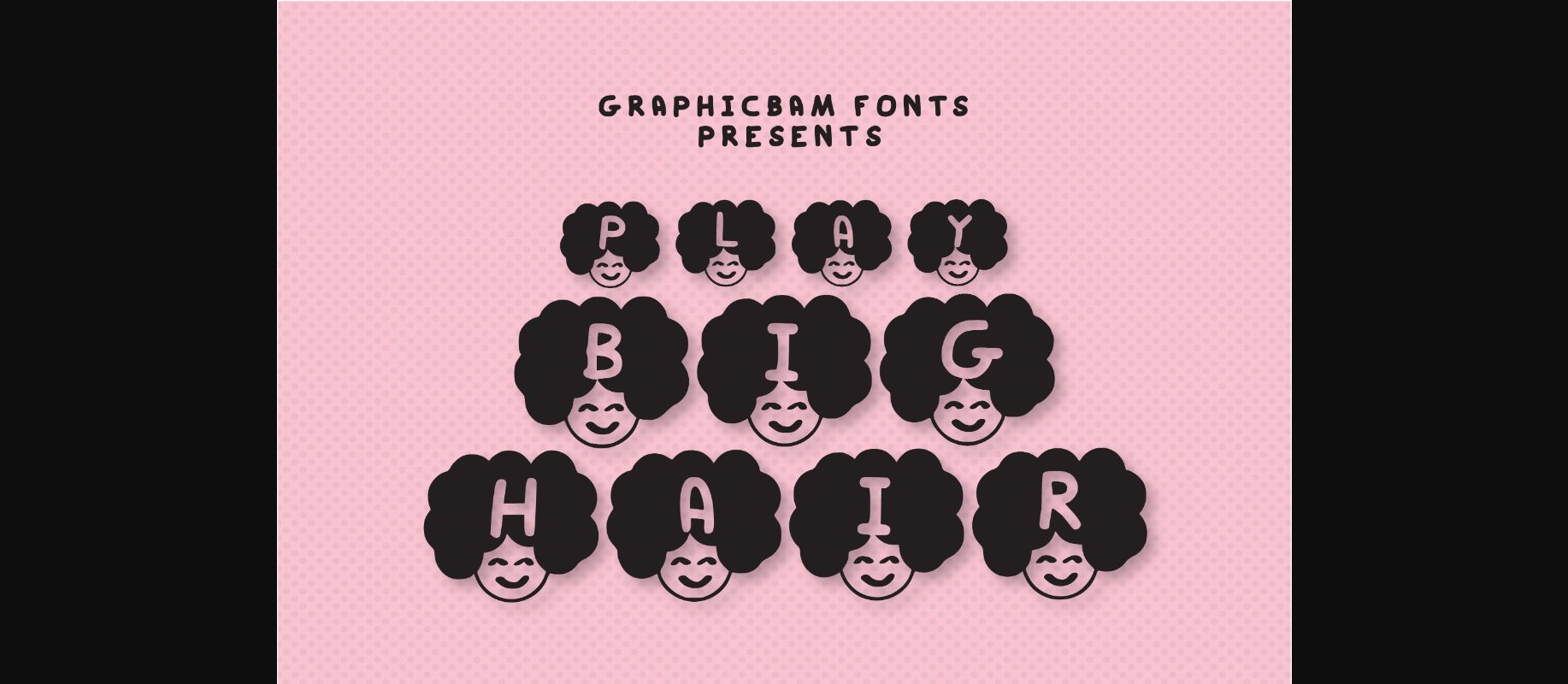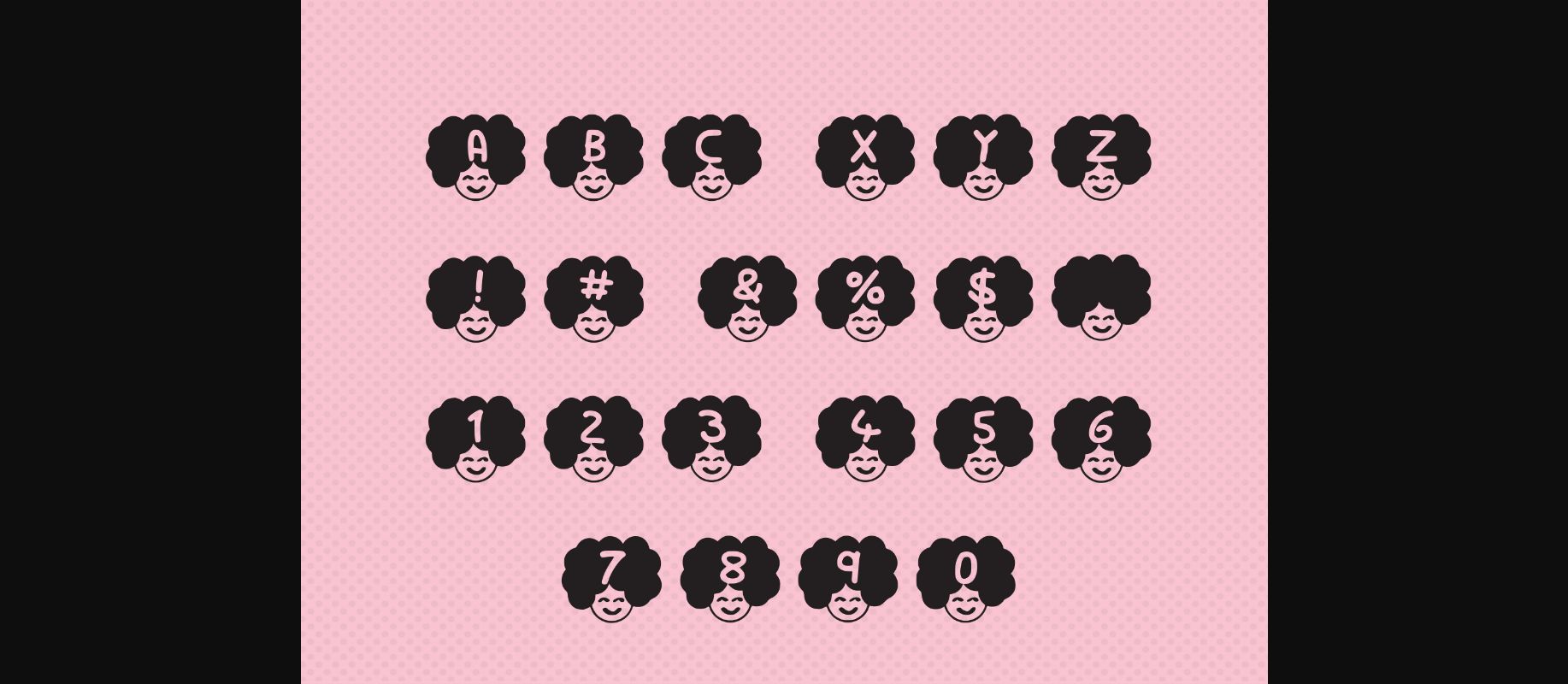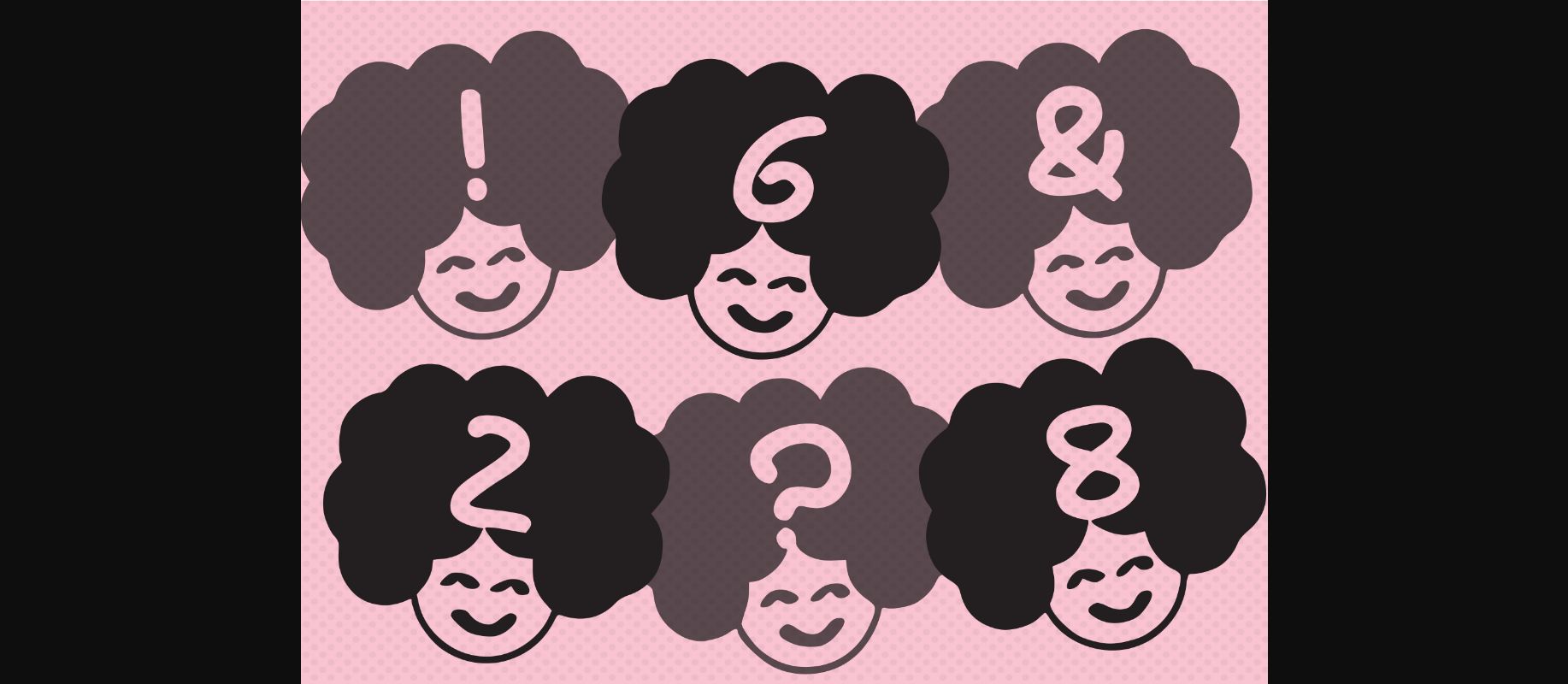
About Play Big Hair Font
Play Big Hair is a cool looking and interesting decorative font, featuring a hairy person on each character. No matter the topic, this font will be an incredible asset to your fonts’ library, as it has the potential to elevate any creation.